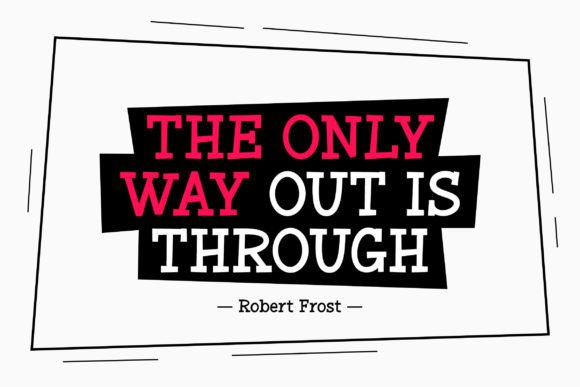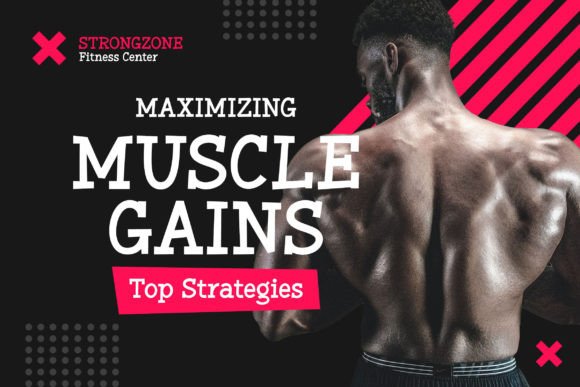
Introduction to Mighty Bastion Font
As a designer, there’s nothing quite like the thrill of discovering a new font that perfectly captures the essence of your creative project. For me, that moment came when I stumbled upon the Mighty Bastion Font – a stunning display font that’s as versatile as it is visually striking.
Its classic, dynamic letterforms transport you to a world of timeless elegance, making it an instant favorite for logos, branding, and magazine headlines. The Mighty Bastion Font is a treasure trove of creative possibilities, perfect for designers looking to add a touch of sophistication to their work. With its transparent background and high-quality design, this font is a valuable resource for any project that demands attention and style.
Whether you’re working on a free download or a high-end design project, the Mighty Bastion Font is an invaluable addition to your design toolkit. So, let’s dive in and explore the world of this incredible font, and discover how it can elevate your designs to new heights.
Key Features of Mighty Bastion Font
- High-quality, professional font design ideal for creative projects and presentations.
- Designed to be highly legible, with clear and crisp typography suitable for a wide range of creative projects.
- Perfect for use in logos, branding, and other design elements where a strong, bold font is desired.
Honest Review: Mighty Bastion Font
I recently had the chance to use the Mighty Bastion Font in a creative project, and I must say it’s been a game-changer. This font is perfect for designers looking for a high-quality design resource that’s free to download. The transparent background makes it super easy to use in any design software.
- ✨ Unique and elegant design that adds a touch of sophistication to any project
- ✨ Highly customizable, with plenty of options for font size, color, and style
- ✨ Excellent legibility, making it perfect for body text or headings
- ⚠️ Limited font styles available (although the ones they do offer are excellent)
Overall, I’m really impressed with the Mighty Bastion Font. It’s a great addition to any designer’s toolkit, and I’ll definitely be using it again in the future. If you’re looking for a high-quality, free design resource, I’d definitely recommend giving it a try.
Common Use Cases for the Mighty Bastion Font
The Mighty Bastion Font is a versatile design resource that can be used in a variety of creative projects, including logos, graphics, presentations, and documents. Its unique and eye-catching design makes it perfect for use in marketing materials, such as brochures, flyers, and business cards.